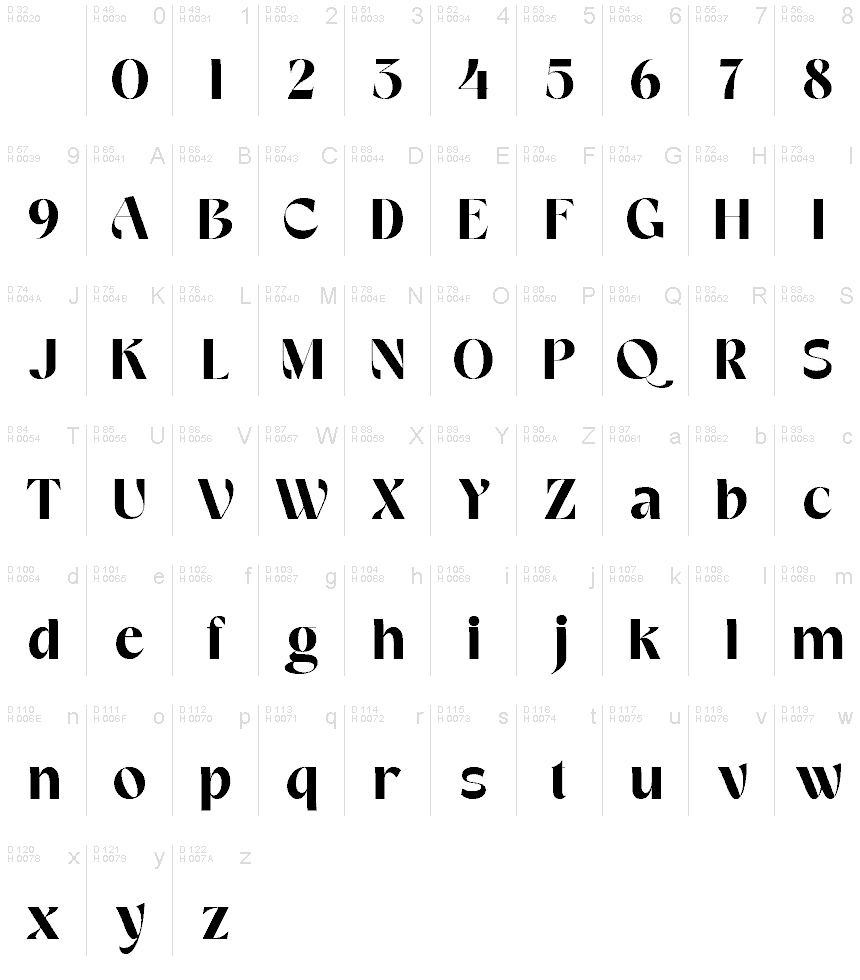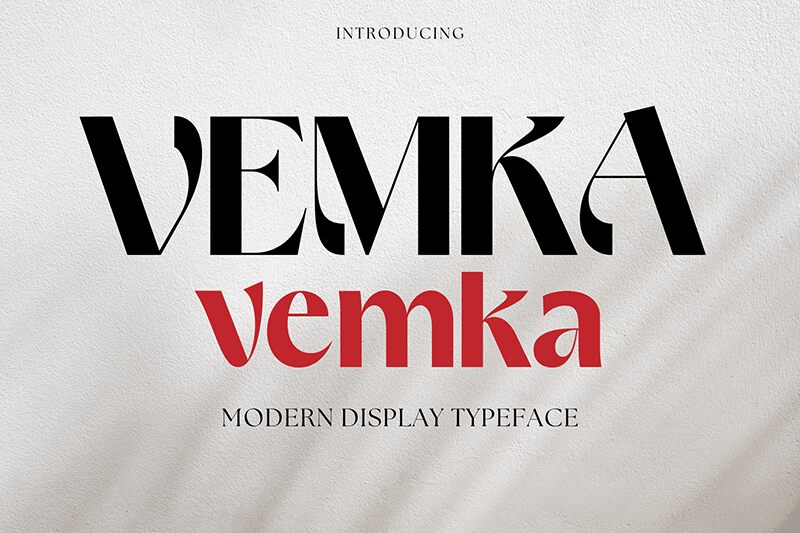
VEMKA
Vemka font is a beautiful bold display font designed by Ibrahima Studio. It elegantly displays a modern style through its refined letters which have geometric influences. Furthermore, dramatic flair and high contrast are added to give the typeface even more sophistication. So when you get your hands on this tool, rest assured your projects will flow with elegance and style.
The uses of this free display font are unlimited with some examples being fashion magazines, posters, banner designs, logos and branding work. Other possibilities include YouTube covers/thumbnails, social media posts or simply having fun with it for personal use by creating letterhead stationery etc. Use it however you wish!